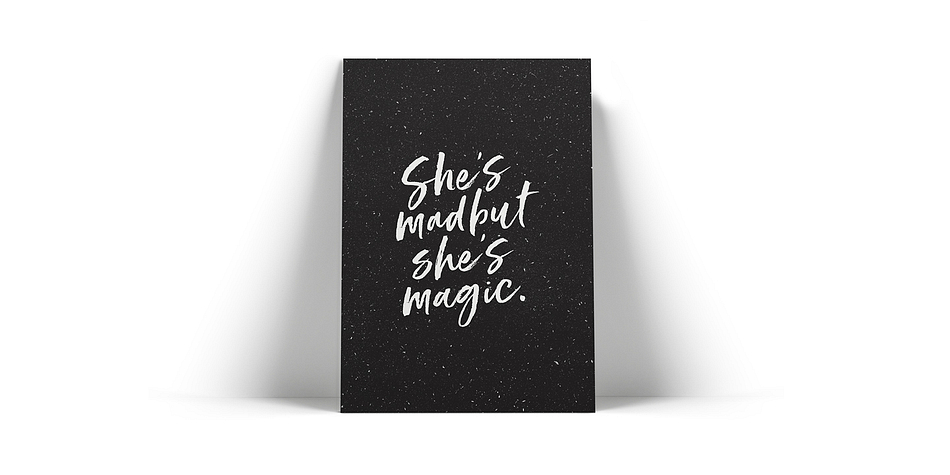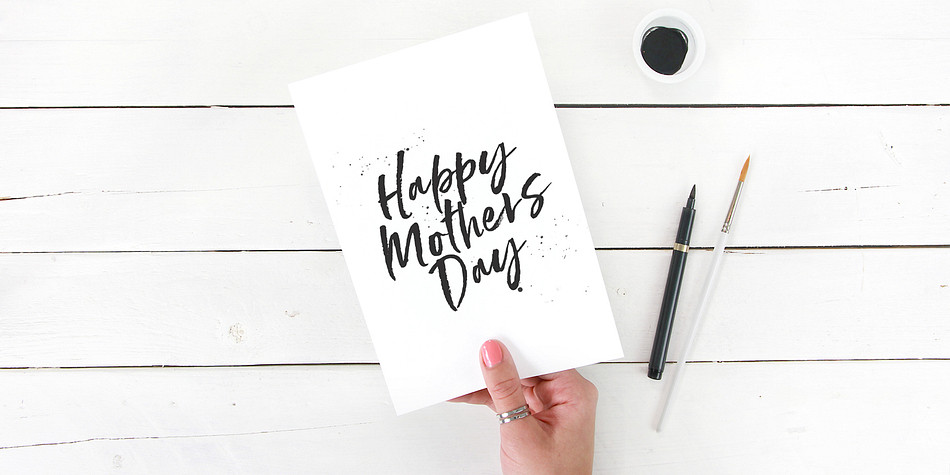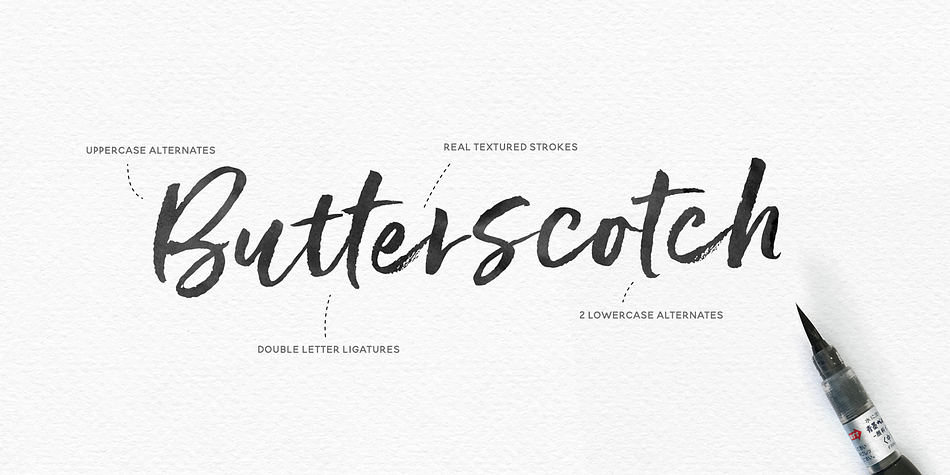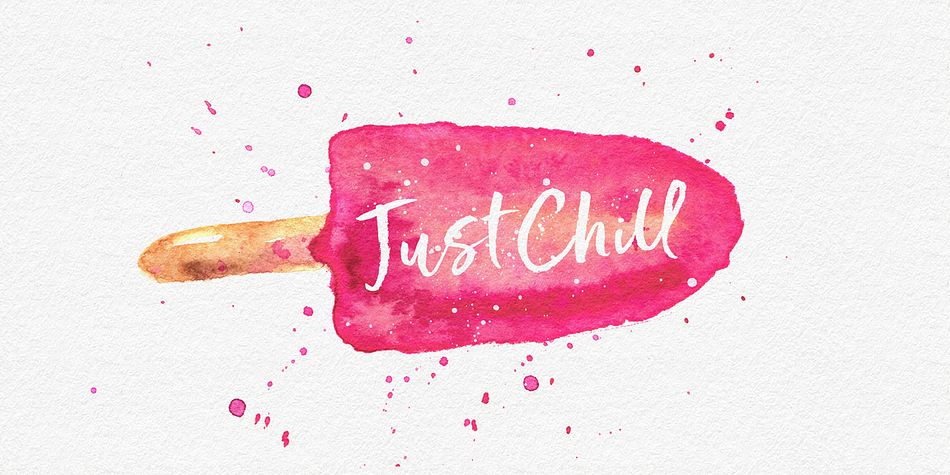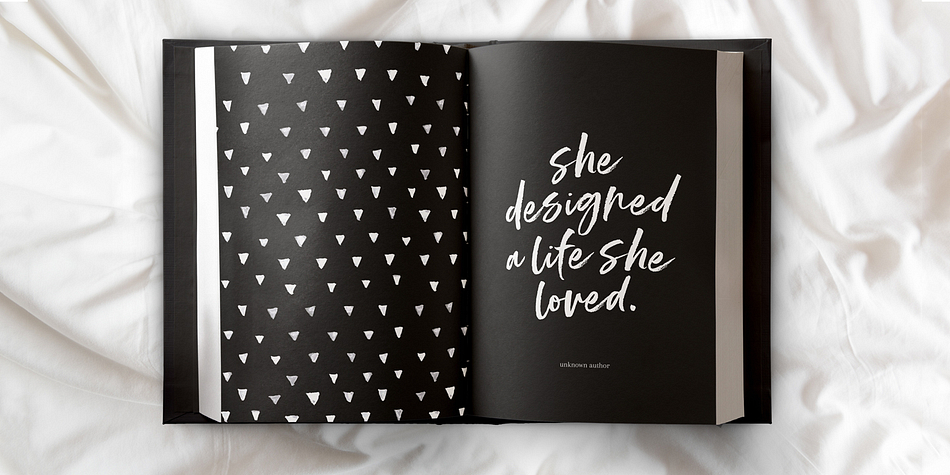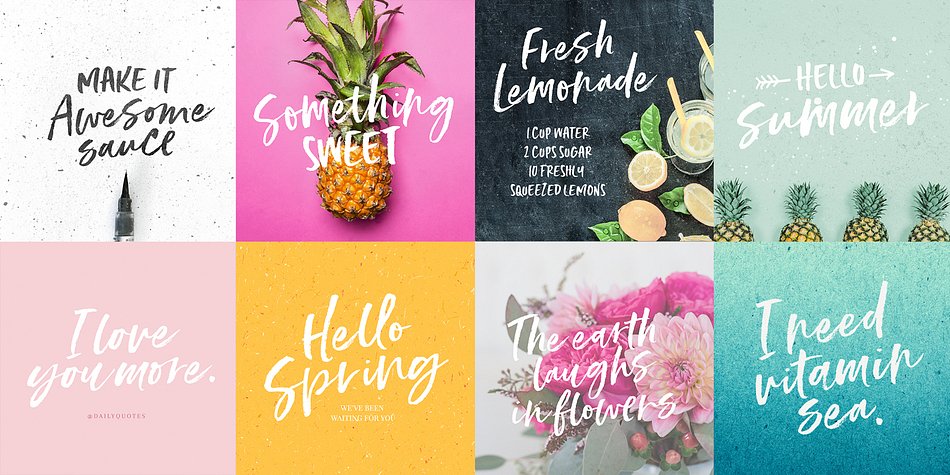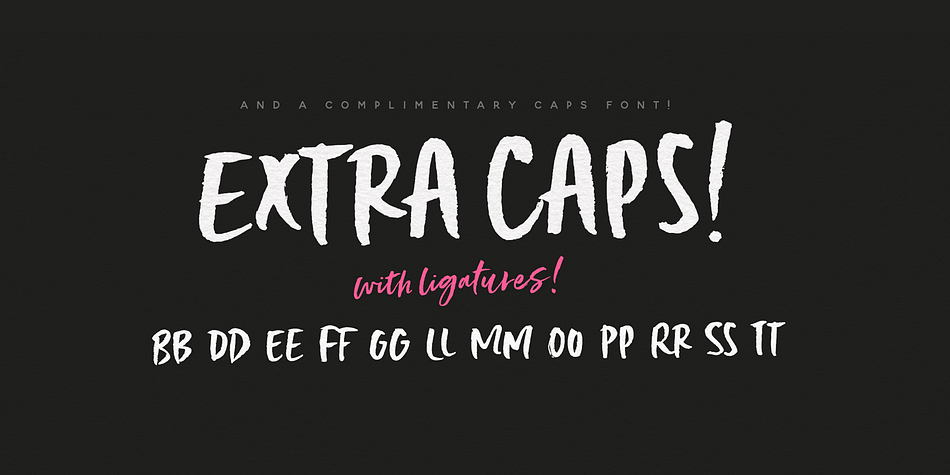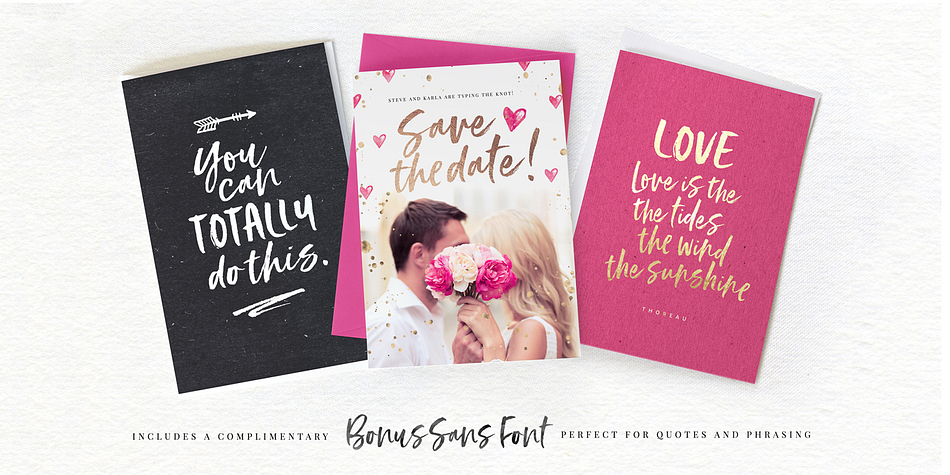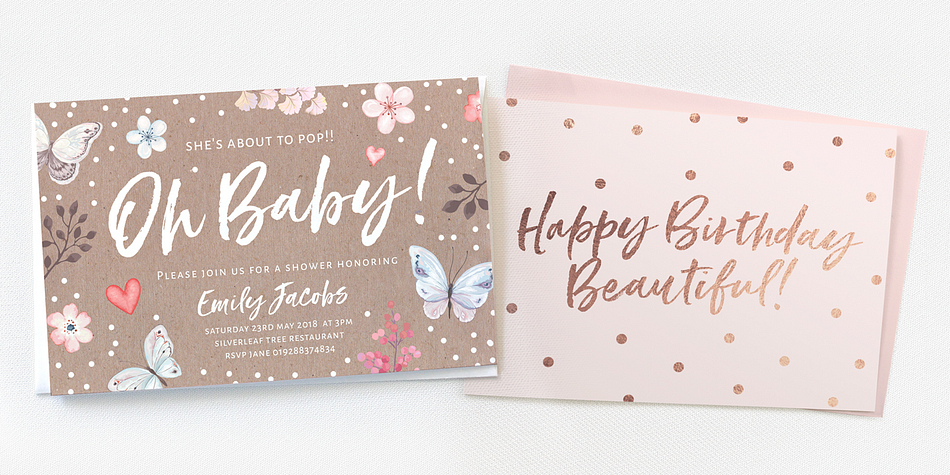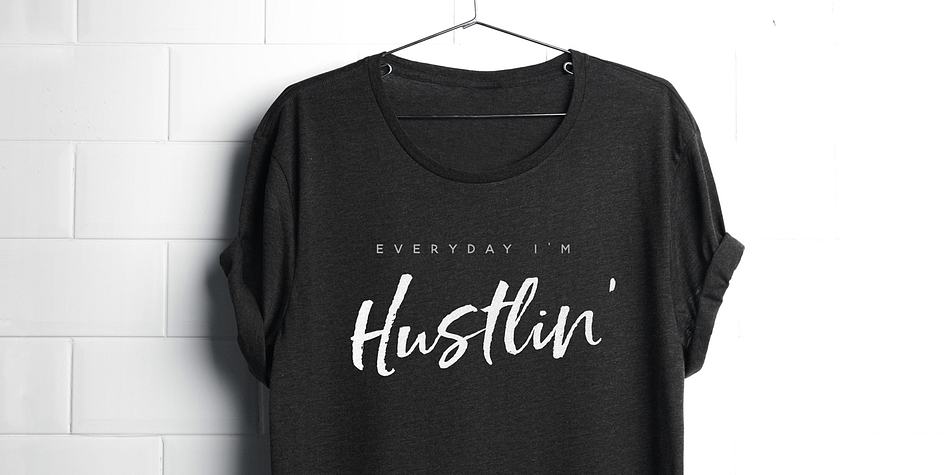
Designed by Nicky Laatz, Styled Up is a modern calligraphy font family. This typeface has five styles and was published by Nicky Laatz.
Are you looking for a font that says “I’m unique”? Say hello to Styled up! A new authentic hand-brushed, modern calligraphy font with a stylish flair and a quirky personality. “Styled up!” comes with a complimentary caps font, perfect for when you need to add extra text in those stubborn empty spaces in your type designs.
Styled up! is super special in that it creates completely unique and individual designs - you can write one line in a million different ways thanks to it’s opentype features with 2 sets of extra alternate lowercase letters and an extra set of Uppercase alternate letters.
Styled up! also comes with a comprehensive set of double letter ligatures to make your designs look even more naturally written.
Styled up! is perfect for any project needing a unique hand lettered touch - branding, greeting cards, logos, websites, wedding signage, printables, and super stylish merch.